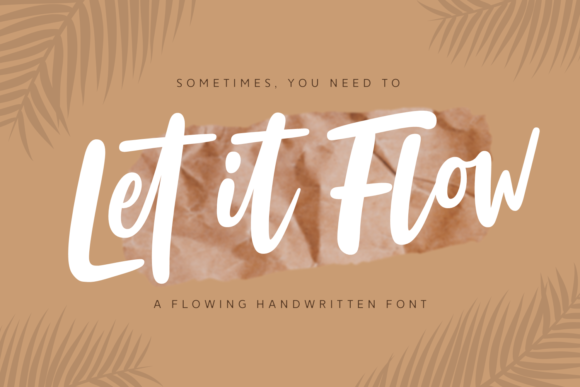
Journey into the realm of Let It Flow, a script font family that captivates with its natural, cascading charm. Crafted with the vision of evoking a sense of organic beauty, Let It Flow will elevate your designs to new heights.
Its graceful strokes and delicate curves embody the essence of elegance and sophistication. Let your brand or project bask in its cohesive, distinctive, and enchanting allure. As a script font, Let It Flow grants you the power to craft logos, social media posts, blog headers, product packaging, and countless other design projects with an unmatched level of artistry.
This font family seamlessly weaves together coherence and adaptability, rendering it a versatile gem for any creative endeavor. Embark on a design odyssey where aesthetics and functionality harmoniously converge.
Unleash your creativity with Let It Flow and watch as your words transform into captivating visual expressions. Its captivating charm will weave a spell on your audience, leaving them entranced and eager for more.
Let your imagination soar as you explore the boundless possibilities of Let It Flow. From delicate wedding invitations that exude timeless elegance to eye-catching social media posts that demand attention, this font family is your ultimate companion in the realm of design.
Embrace Let It Flow, and witness the transformation of your designs into captivating works of art. Let your creativity dance and let your designs flow effortlessly with this extraordinary font family.